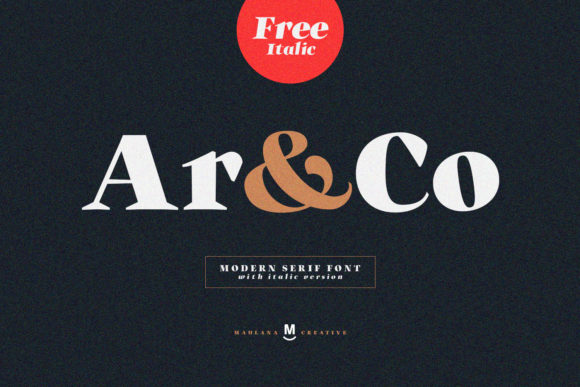
Discover the Charm of Ar and Co Font: Elevate Your Design Projects
Are you tired of using the same old fonts in your design projects? Look no further than the Ar and Co font, a simple yet charming serif font that packs a bold punch. With its unique blend of classic and modern elements, Ar and Co is the perfect choice for designers and crafters looking to make their work stand out from the crowd.
The Characteristics of Ar and Co Font
Ar and Co is a serif font, which means it features small lines or flourishes at the ends of the letters. This gives it a classic, timeless feel that’s perfect for a wide range of design projects. But what sets Ar and Co apart from other serif fonts is its bold, confident feel. The letters are sturdy and substantial, with a weighty presence that’s sure to grab attention.
Despite its bold feel, Ar and Co is also a remarkably versatile font. It’s suitable for use in a wide range of design projects, from elegant invitations and certificates to bold posters and headlines. And with its simple, uncomplicated design, Ar and Co is also a great choice for digital applications, such as website headers and social media graphics.
What Makes Ar and Co Font So Special?
So what makes Ar and Co font so special? Here are just a few reasons why designers and crafters are falling in love with this charming serif font:
- Unique character: Ar and Co has a distinctive, one-of-a-kind feel that’s sure to set your design projects apart from the crowd.
- Bold and confident: The bold, sturdy letters of Ar and Co make it perfect for headlines, titles, and other applications where you want to make a statement.
- Versatile: Ar and Co is suitable for use in a wide range of design projects, from elegant and sophisticated to bold and playful.
- Easy to read: Despite its bold feel, Ar and Co is also remarkably easy to read, making it perfect for body text and other applications where clarity is key.
How to Use Ar and Co Font in Your Design Projects
So how can you use Ar and Co font in your design projects? Here are a few ideas to get you started:
- Headlines and titles: Use Ar and Co to create bold, eye-catching headlines and titles that grab attention and set the tone for your design project.
- Invitations and certificates: Ar and Co is perfect for elegant invitations, certificates, and other formal documents where you want to convey a sense of sophistication and style.
- Posters and flyers: Use Ar and Co to create bold, attention-grabbing posters and flyers that stand out from the crowd.
- Website headers: Ar and Co is also a great choice for website headers and other digital applications where you want to make a bold statement.
Tips and Tricks for Working with Ar and Co Font
Here are a few tips and tricks to help you get the most out of Ar and Co font:
- Experiment with different sizes: Ar and Co looks great in a wide range of sizes, from large headlines to smaller body text.
- Play with color: Ar and Co is a versatile font that works well with a wide range of colors and design schemes.
- Use it with other fonts: Ar and Co pairs well with a wide range of other fonts, so don’t be afraid to experiment with different combinations.
In conclusion, Ar and Co font is a simple yet charming serif font that’s perfect for designers and crafters looking to elevate their design projects. With its bold, confident feel and versatile design, Ar and Co is sure to become a go-to font in your design toolkit. So why not give it a try and see the difference it can make in your work?